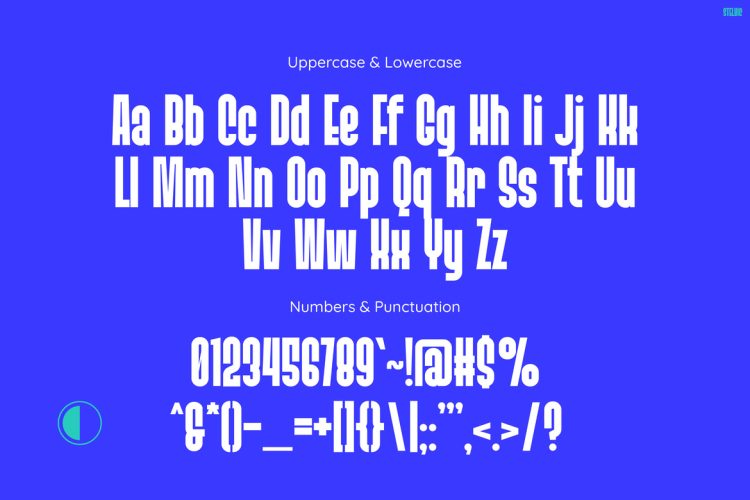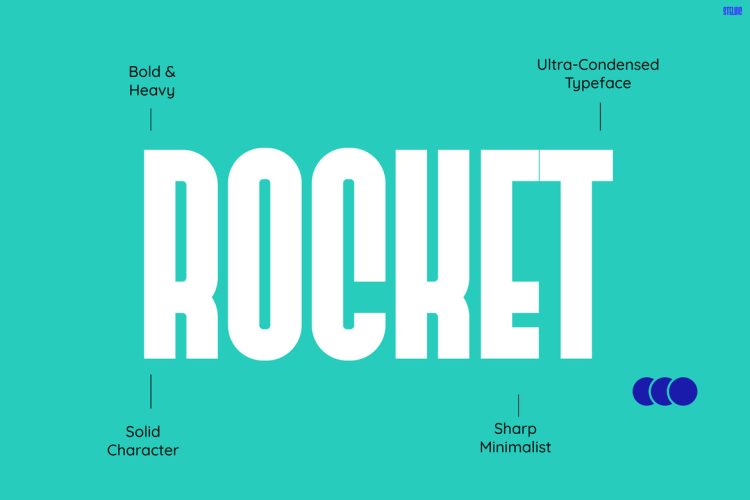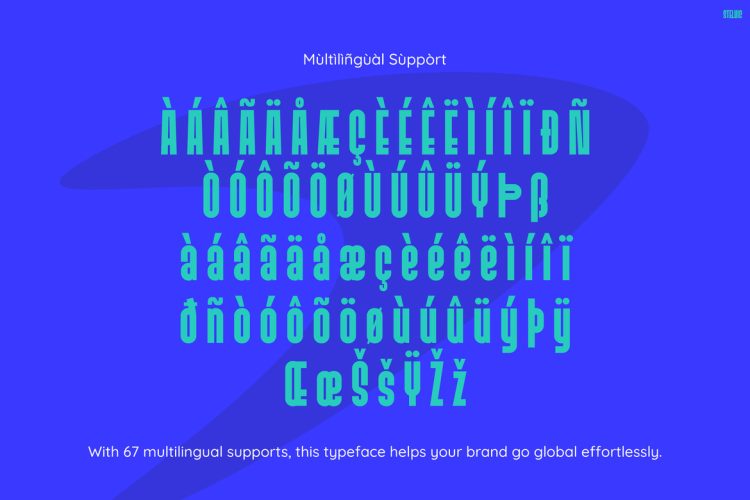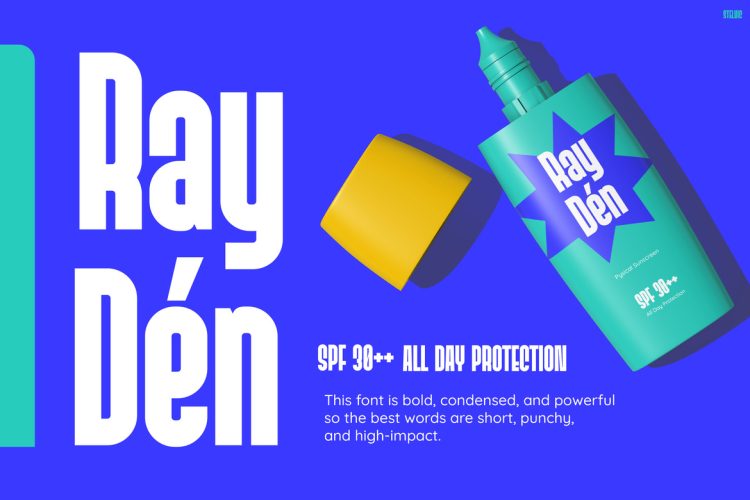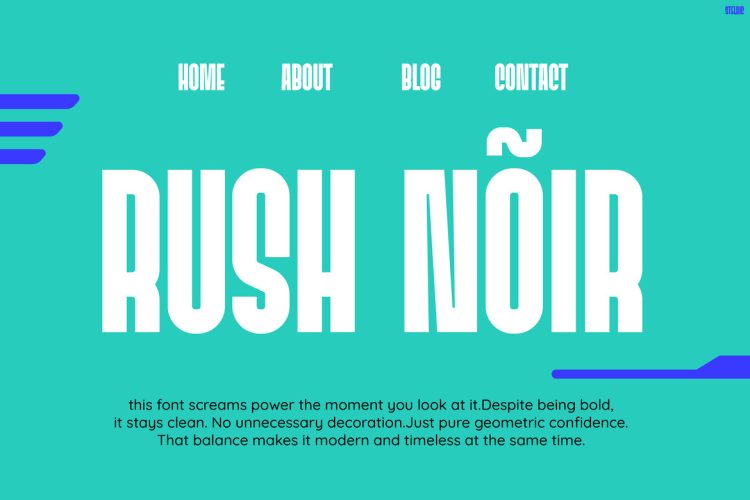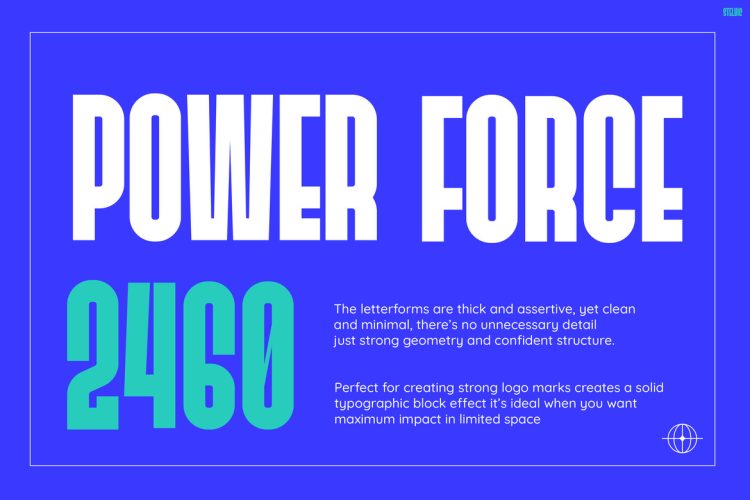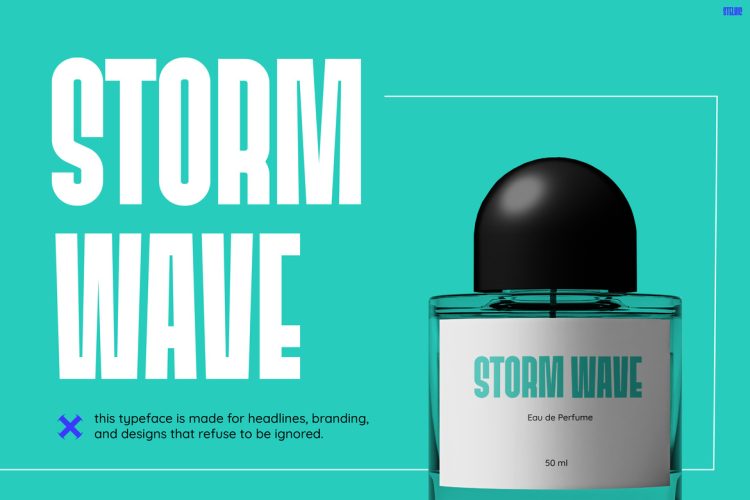
Stelvic โ Bold Condensed Instagram Font for Modern Impact
Instagram Font Stelvic delivers a powerful visual punch with its tall, condensed letterforms and sleek geometric structure. Designed to stand out instantly, this font combines modern minimalism with a strong industrial edge, making it highly effective for high-impact visuals. Its narrow spacing maximizes readability while maintaining a bold presence, perfect for grabbing attention in crowded digital spaces. The clean lines and sharp proportions create a futuristic yet professional aesthetic, making Stelvic not only visually striking but also highly functional across various design needs. With support for 67 languages, it ensures seamless communication for global audiences while maintaining its strong stylistic identity.
Stelvic is a modern condensed display font crafted for designers who want clarity, strength, and efficiency in one typeface. Its tall structure allows you to fit more text into limited space without sacrificing legibility, making it ideal for headlines, posters, and digital campaigns. The fontโs clean and confident style reflects a contemporary, tech-inspired vibe that works perfectly in branding, advertising, and editorial layouts. Whether paired with bold visuals or minimalist compositions, Stelvic enhances the overall design with a professional and cutting-edge feel.
Stelvic is perfect for graphic designers, digital marketers, startups, and brands aiming to create strong visual identities. It works exceptionally well for social media content (especially Instagram posts), tech branding, fitness campaigns, product promotions, posters, websites, and modern editorial designs. If you want your message to feel bold, confident, and instantly noticeable, Stelvic is the right choice.